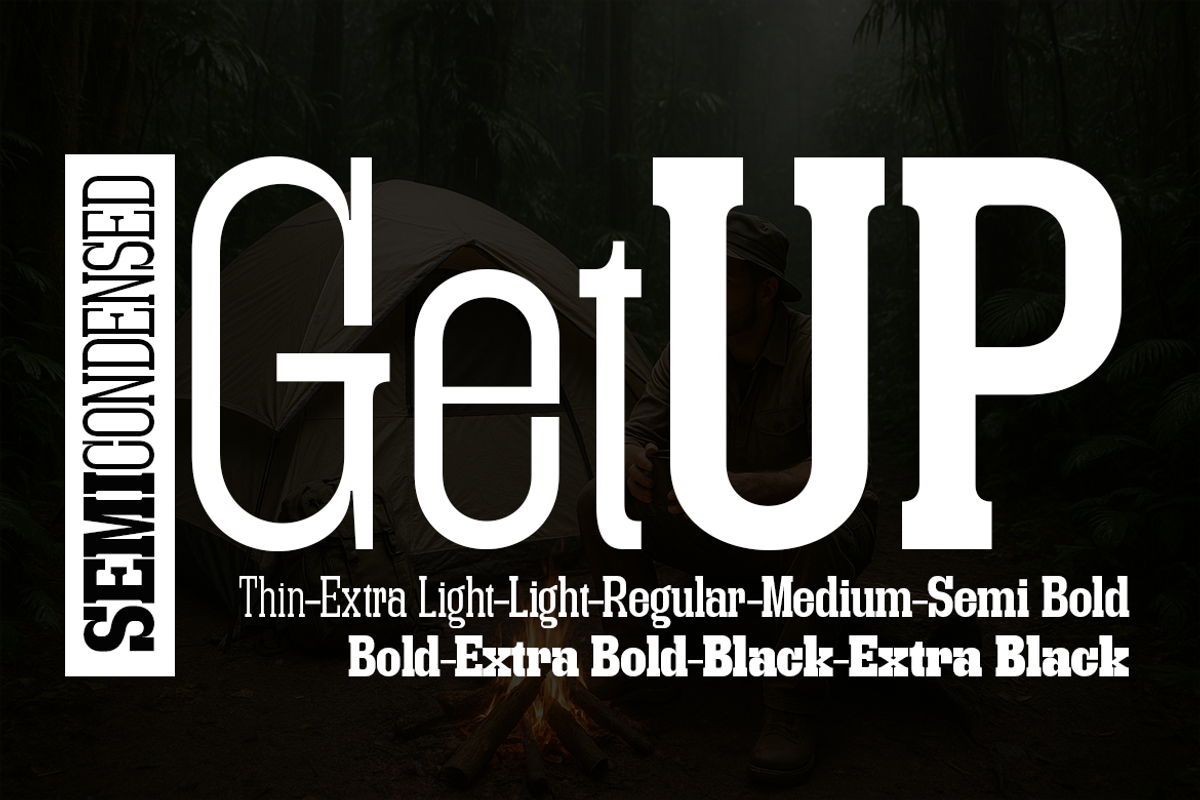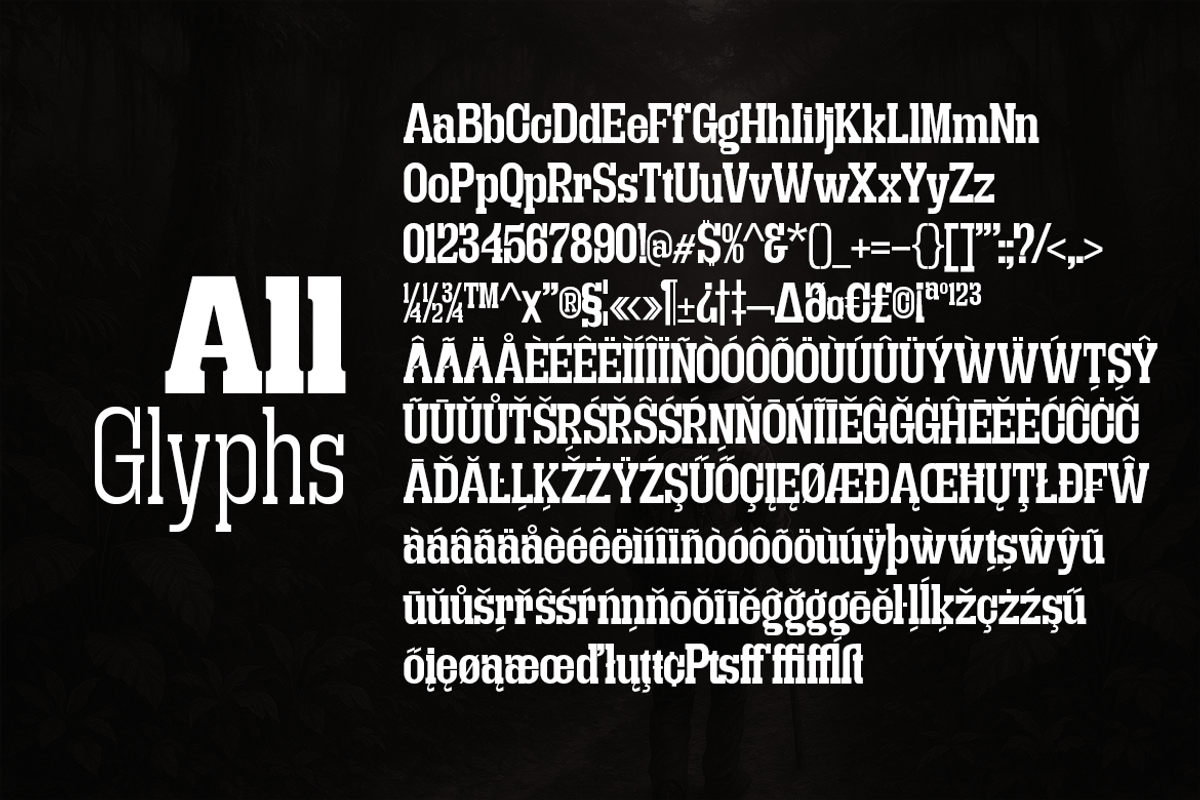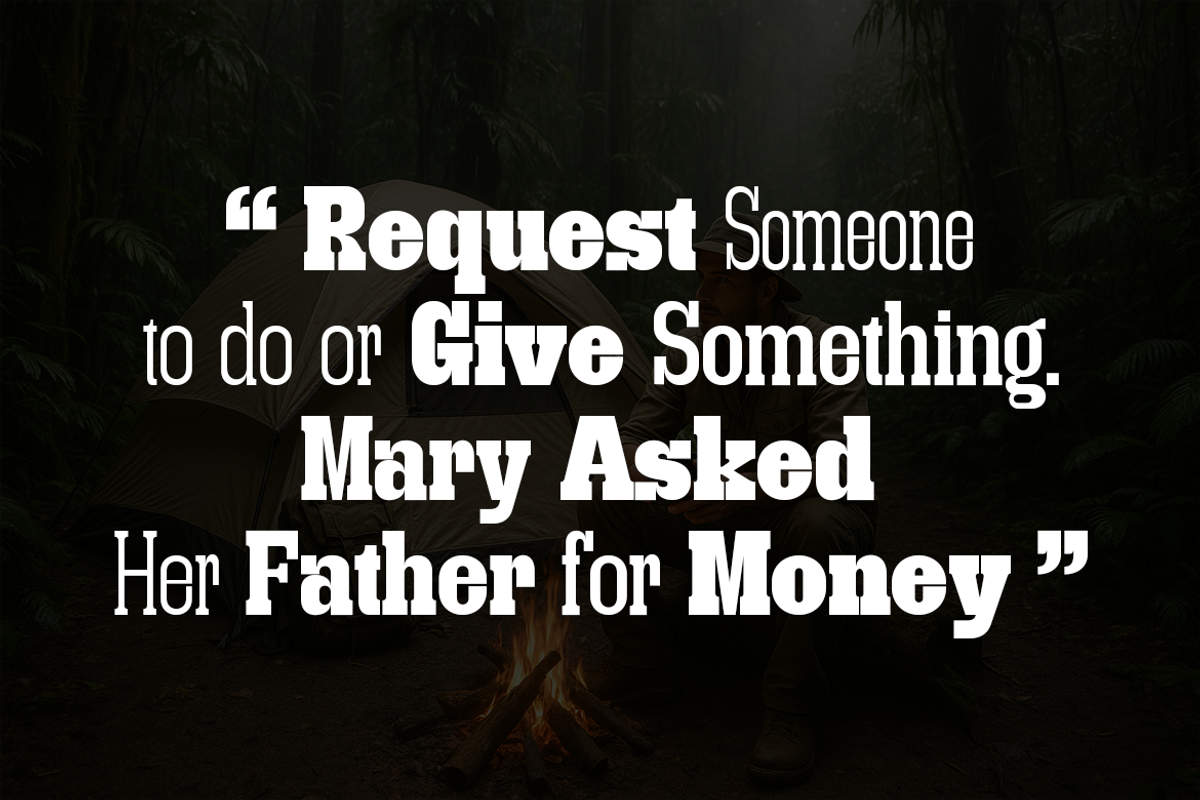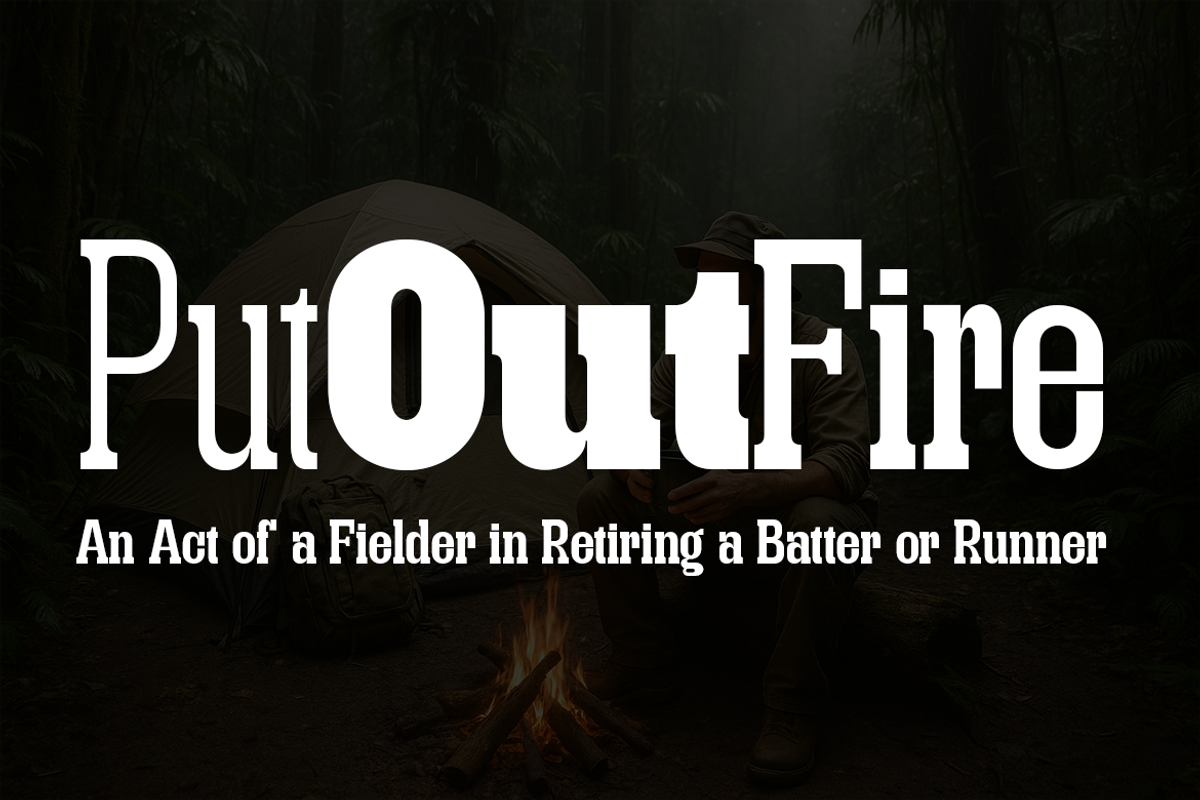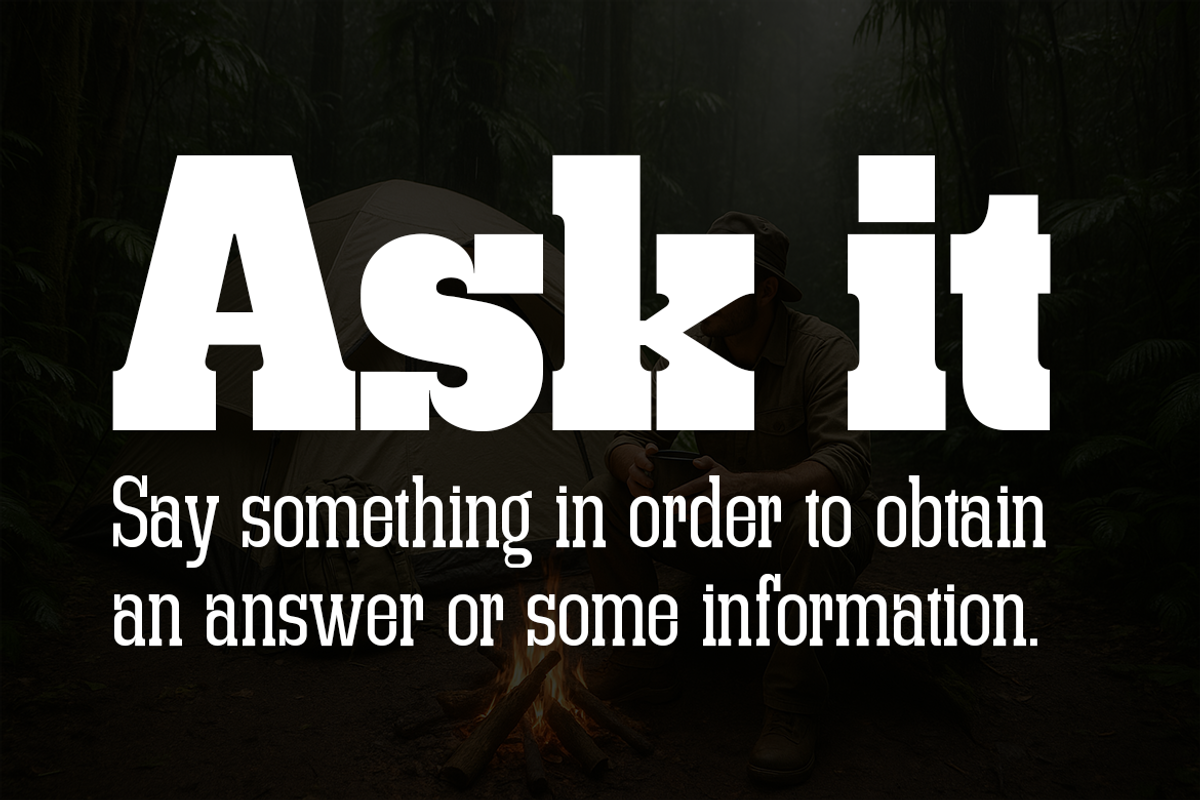
GetUp – Semi Condensed
GetUp – Semi Condensed (10 Weights: Thin–Extra Black)
Description: GetUp Semi Condensed blends confident slab serif character with smoother text flow. Equipped with 10 full weights, this category works beautifully for logos, title sequences, packaging, and social media graphics. Its slightly compressed proportions enhance readability while keeping the iconic strength of the GetUp family. From delicate thin strokes to commanding extra-black slabs, this set delivers consistent power and refinement.